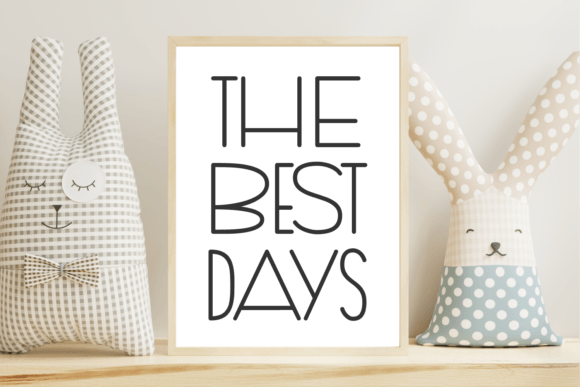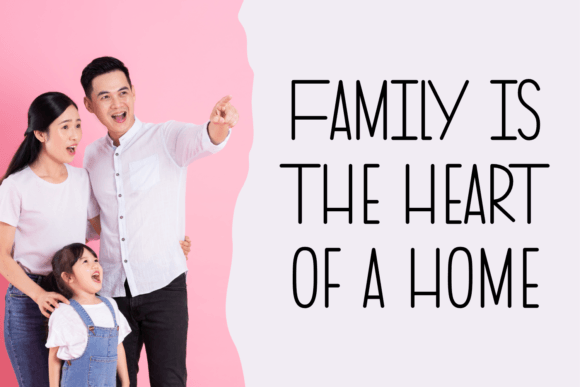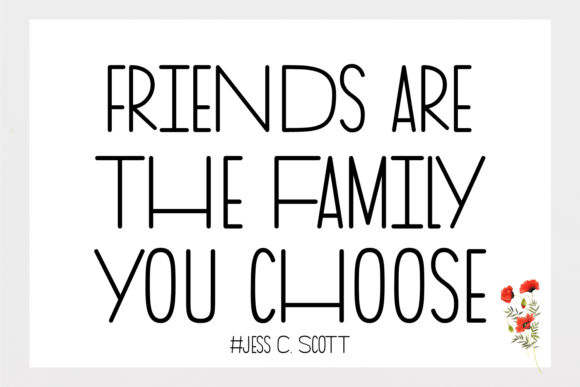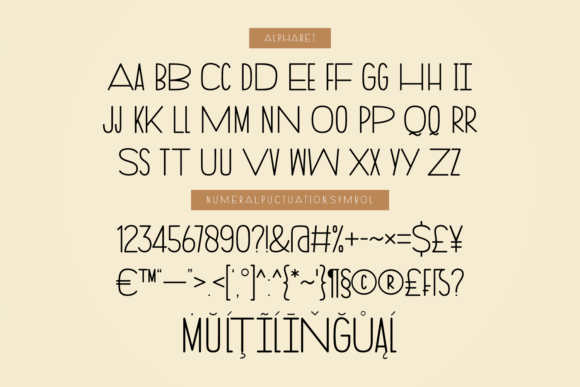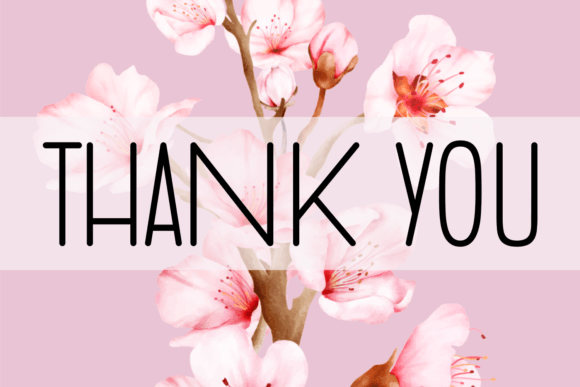
Adding a Personal Touch to Your Designs
There’s nothing quite like the thrill of discovering a font that perfectly captures the essence of your creative vision. It’s the moment when all the pieces fall into place, and your design takes on a life of its own. For designers, this moment is often the result of hours spent browsing through font libraries, searching for that elusive combination of style and character.
Enter the Audrena Monoline Font, a beautifully crafted handwritten font that embodies the perfect blend of elegance and whimsy. With its unique monoline design, this font adds a personal touch to your designs, setting them apart from the ordinary and making them truly unforgettable. Whether you’re working on a branding project or a social media campaign, the Audrena Monoline Font is sure to bring a charming and distinct look to your text.
Audrena Monoline Font Key Features
- Font Family: Audrena Monoline
- Unique Characteristics: Elegant and modern design, perfect for creating elegant and sophisticated designs, monoline style with smooth lines, suitable for various design applications including logos, headings, and body text.
Audrena Monoline Font Review
As a designer, I was excited to dive into the Audrena Monoline Font, and I have to say, it’s a beautiful addition to any design project. ✨ The font’s elegant, monolinear design makes it perfect for creating clean and modern layouts. It’s a great choice for branding, packaging, and editorial designs where a touch of sophistication is needed.
Here are some of the things that I like about the Audrena Monoline Font:
- ✨ Elegant, monolinear design that adds a touch of sophistication to any layout
- ✨ Perfect for creating clean and modern designs, especially for branding, packaging, and editorial projects
- ✨ Great for designers looking for a unique, high-end feel without breaking the bank
However, like any font, the Audrena Monoline Font has its limitations:
- ⚠️ Limited character set, which may make it less suitable for longer blocks of text
- ⚠️ May not be the best choice for body text, as it can be a bit difficult to read in smaller sizes
- ⚠️ May require some adjustments to line spacing and letter spacing to get the perfect look
Overall, I think the Audrena Monoline Font is a great addition to any designer’s toolkit. While it may have some limitations, its unique design and high-end feel make it perfect for a wide range of design projects. With a little creativity and experimentation, you can achieve some truly stunning results with this font.
Tips for Getting the Most Out of Audrena Monoline
For best results, use Audrena Monoline for titles, headings, and other display text.
Avoid using it for large blocks of text, as it can become difficult to read.
Audrena Monoline is ideal for:
Branding and logos
Typography-based artwork